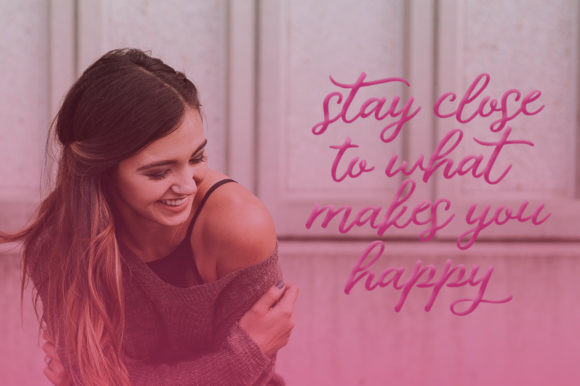
Buttelia Font
Buttelia FontButtelia is a modern handwritten font. It will elevate a wide range of design projects to the highest level, be it branding, headings, wedding designs, invitations, signatures, logos, labels, and much more!